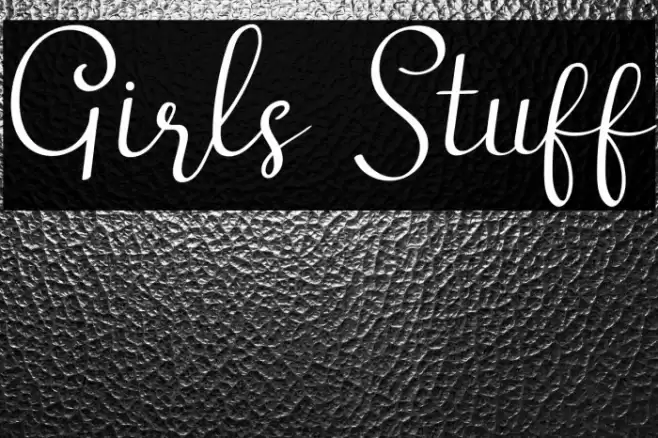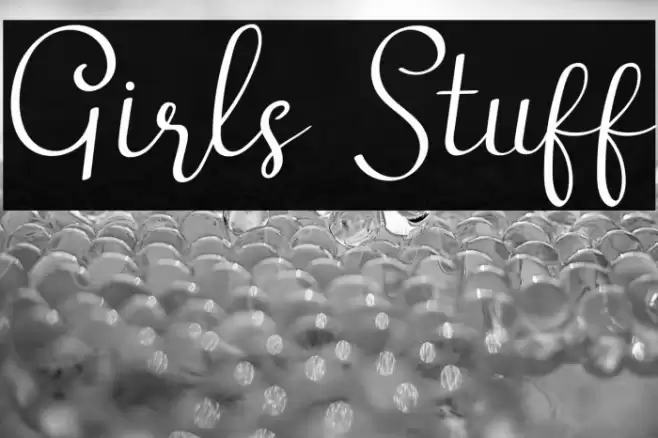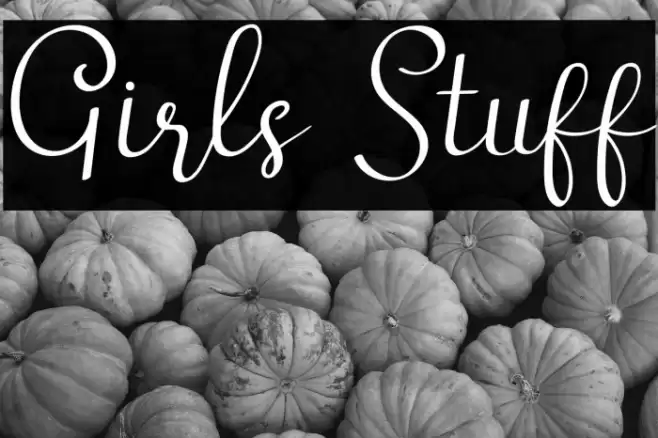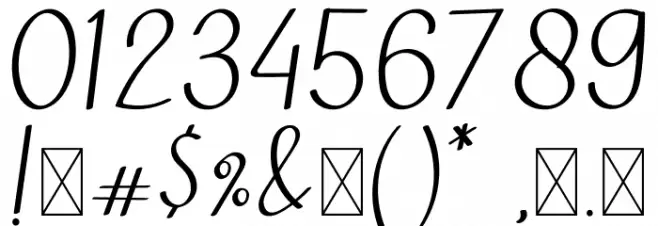
Girls Stuff Font
Girls Stuff Description
This font features a playful and elegant script style, characterized by its flowing, cursive letters. The uppercase letters are tall and slender, with a slight slant that adds a dynamic feel. The lowercase letters are more rounded and connected, creating a smooth and continuous flow. The numerals are clear and easy to read, maintaining the same elegant style. Special characters are well-integrated, matching the overall aesthetic. This font exudes a sense of sophistication and charm, making it suitable for a variety of creative projects.
A playful and elegant script font with flowing cursive letters from Regular fonts.
- Proposed Projects: Ideal for wedding invitations, greeting cards, branding, and logo design.
- Overall Style: Elegant, Playful
- Use Case: Logos, Invitations, Greeting Cards